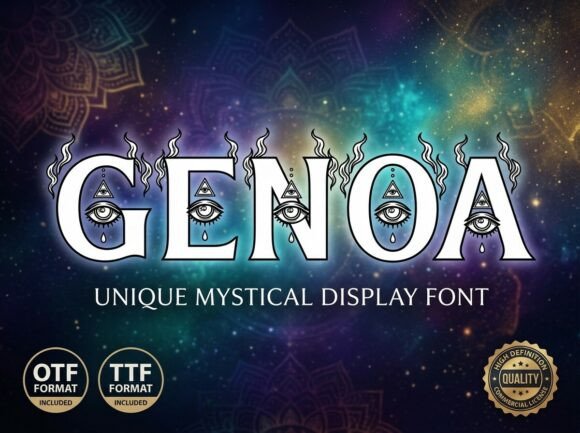
Introducing the Genoa Font: A Stunning Decorative Display Font
Are you tired of using the same old fonts for your designs? Do you want to make a statement and stand out from the crowd? Look no further than the Genoa Font, a unique and artistic display font that’s sure to turn heads. In this article, we’ll take a closer look at the Genoa Font, its features, and how it can elevate your designs to the next level.
The Genoa Font is a decorative display font that’s designed to be the center of attention. With its unique artistic elements and strong visual personality, this font is perfect for creators who want to break away from the ordinary. Whether you’re working on a bold headline, artistic logo, or creative packaging, the Genoa Font is versatile enough to make a lasting impression.
The Genoa Font is perfect for designers and crafters who want to add a touch of elegance and sophistication to their work. With its unique and artistic elements, this font is ideal for:
- Bold Headlines: Make a statement with your headlines using the Genoa Font. Its strong visual personality is sure to grab attention and draw in your audience.
- Artistic Logos: Create a lasting impression with your logo using the Genoa Font. Its unique elements and professional finish make it perfect for businesses that want to stand out.
- Creative Packaging: Add a touch of elegance to your packaging with the Genoa Font. Its versatility and polished finish make it perfect for product labels, branding, and more.
Tips for Using the Genoa Font
To get the most out of the Genoa Font, here are some tips to keep in mind:
- Use it sparingly: The Genoa Font is a decorative display font, so use it sparingly to make a lasting impression. Use it for headlines, logos, or key phrases to draw attention.
- Pair it with a simple font: Pair the Genoa Font with a simple font to create contrast and visual interest. This will help your design stand out and avoid overwhelming your audience.
- Experiment with colors and textures: The Genoa Font looks great in a variety of colors and textures. Experiment with different combinations to find the one that works best for your design.
The Genoa Font is a stunning decorative display font that’s perfect for designers and crafters who want to make a statement. With its unique artistic elements, strong visual personality, and versatility, this font is ideal for bold headlines, artistic logos, and creative packaging. Whether you’re a professional designer or a crafty DIY enthusiast, the Genoa Font is sure to elevate your designs to the next level.